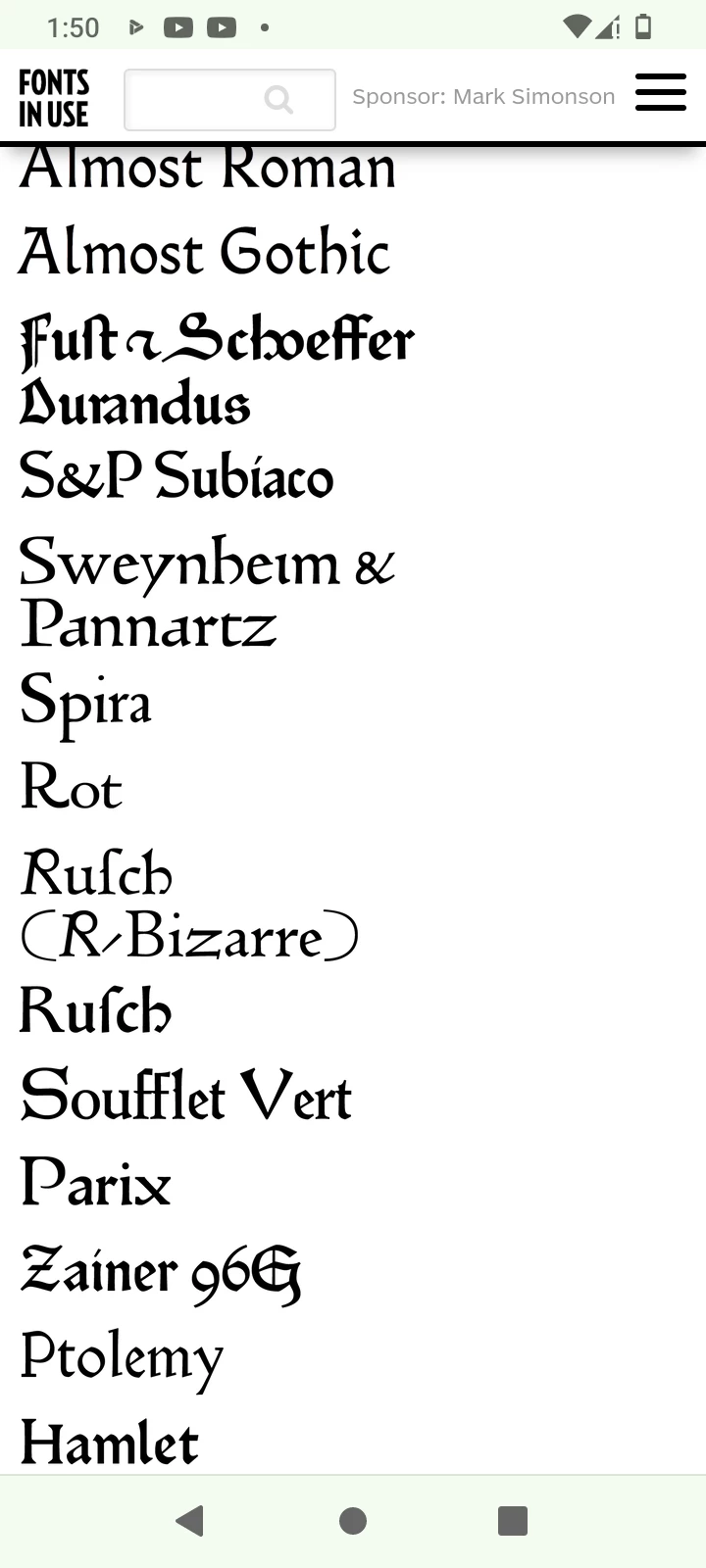
Medieval fonts
Hello, my friend is a user of Adobe Premiere Pro which contains a package of around 2000 different fonts. I was unable to find a medieval font similar to Fust & Schoeffer Font or Schwabach font. Can anybody please write me exact names of fonts that are similar to the old gothic l, handwritten or calligraphy medieval fonts? Thank you in advance.
I am not a Premiere Pro user but I don't think (as other Adobe products) that it comes with 2000 fonts… Anyway, a quick Google search finds easily these 2 fonts.